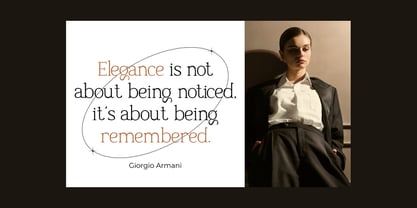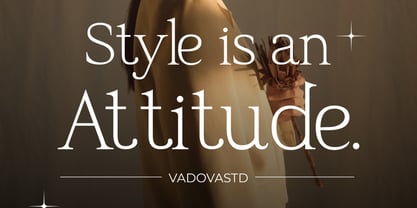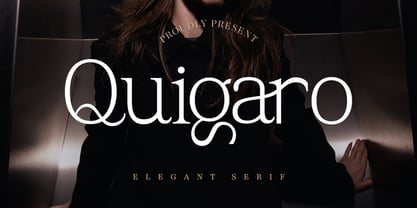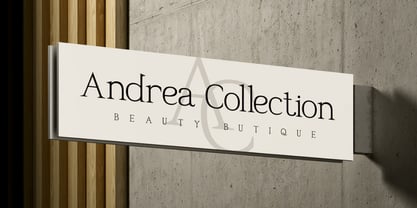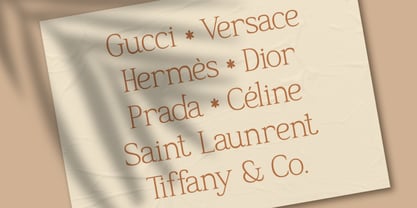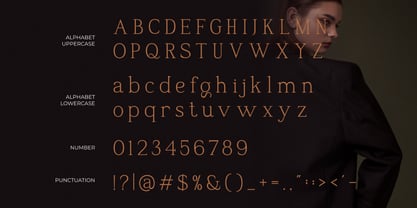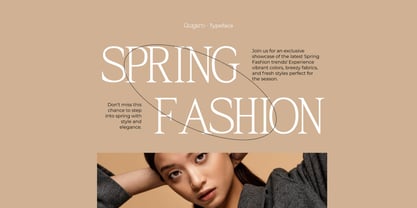
Quigaro
by Vadova Std
The Quigaro Font Family and published by Vadova Std. Quigaro contains 1 styles. More about this family
Quigaro is an elegant modern serif typeface characterized by its flowing lines and sophisticated aesthetic. Its letterform structure features graceful curves and unique, subtly stylized serifs, lending it a distinct and memorable quality. This font evokes a sense of refined beauty, making it particularly well-suited for high-end fashion magazines aiming for a luxurious feel, branding for sophisticated beauty and lifestyle products. Suitable for High-end fashion branding, sophisticated beauty editorials, elegant lifestyle magazines, luxury product packaging, graceful logo design, refined website typography, upscale branding projects, exclusive cosmetic labels, stylish advertising campaigns, memorable stationery design, elegant social media visuals, high-quality book covers.